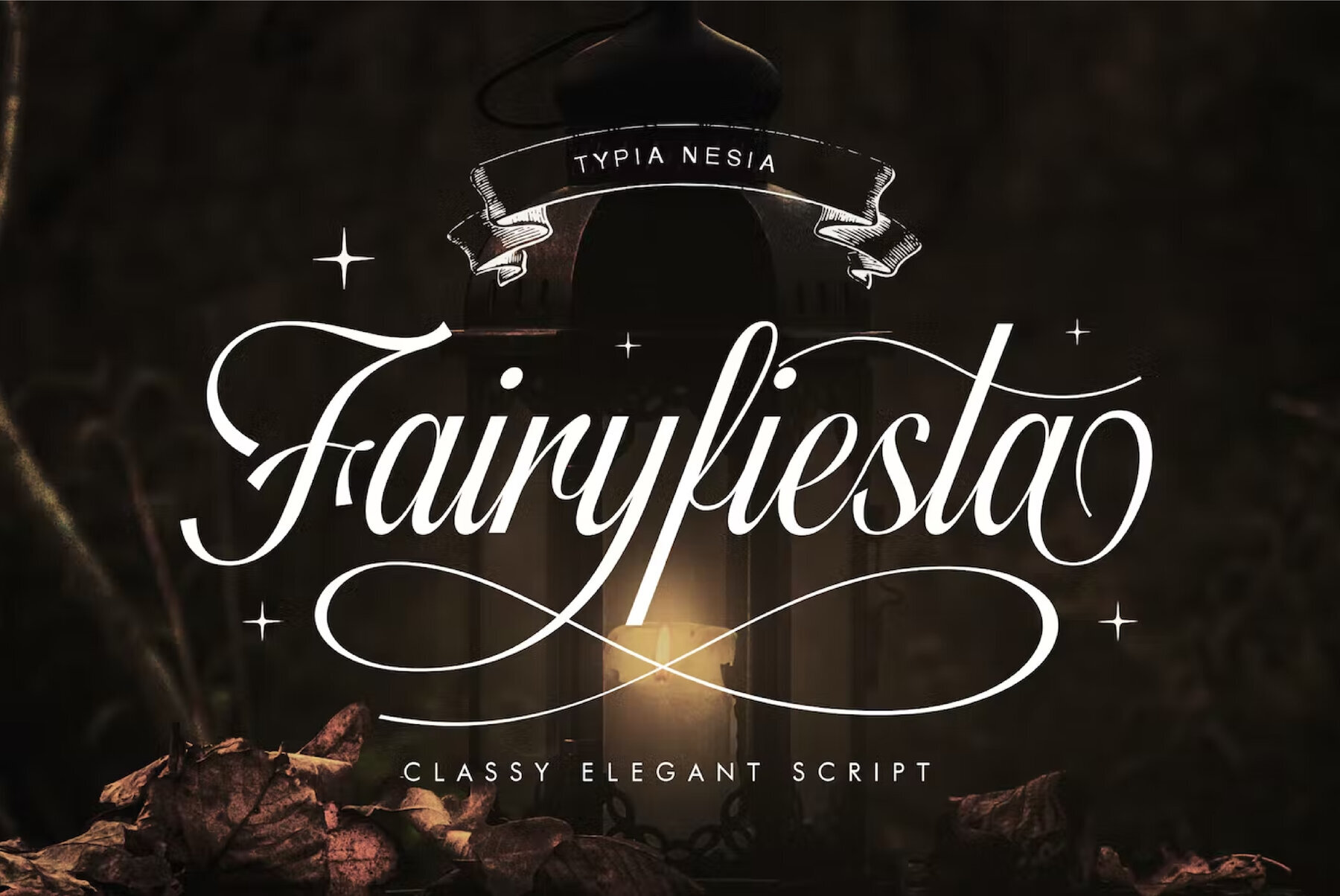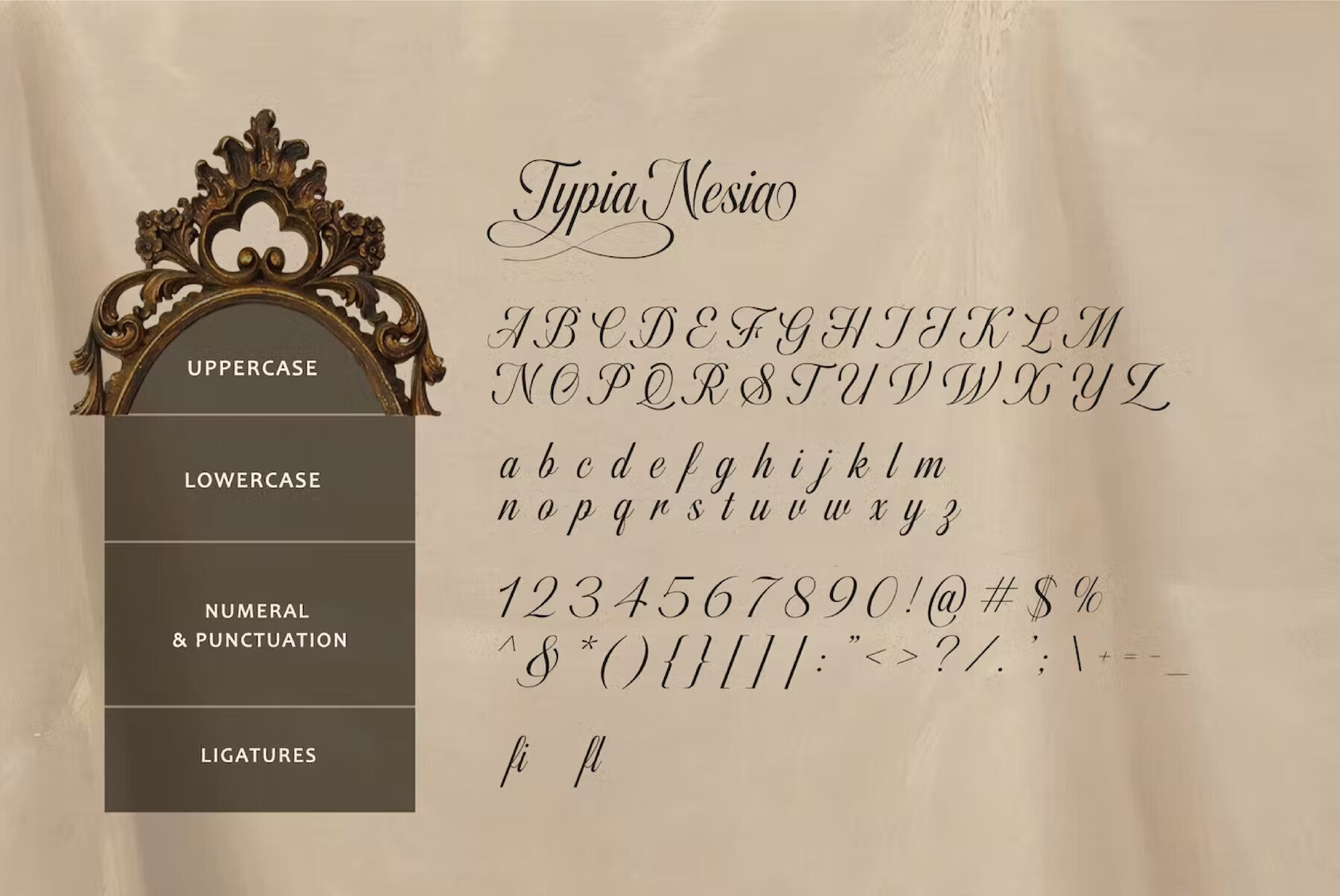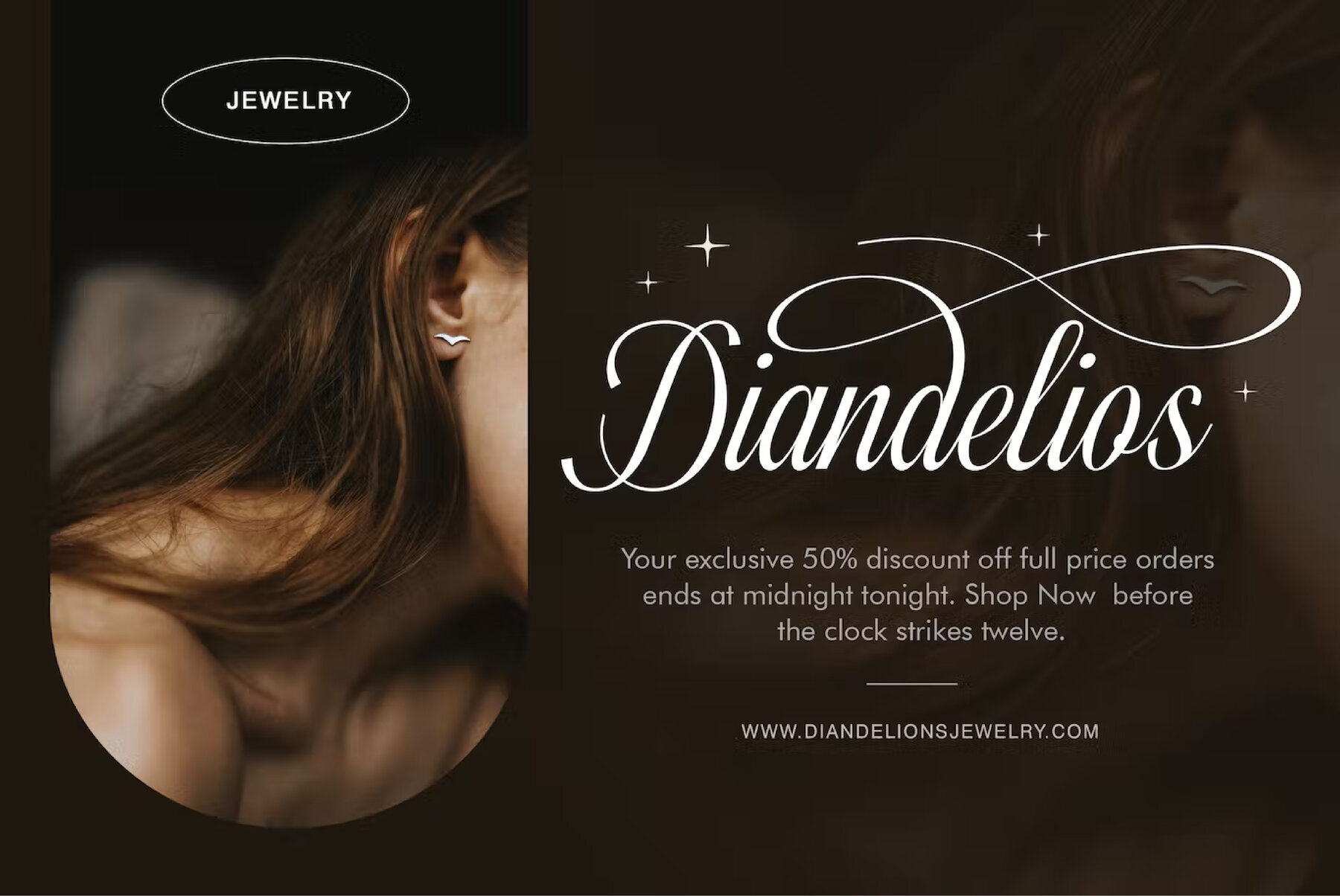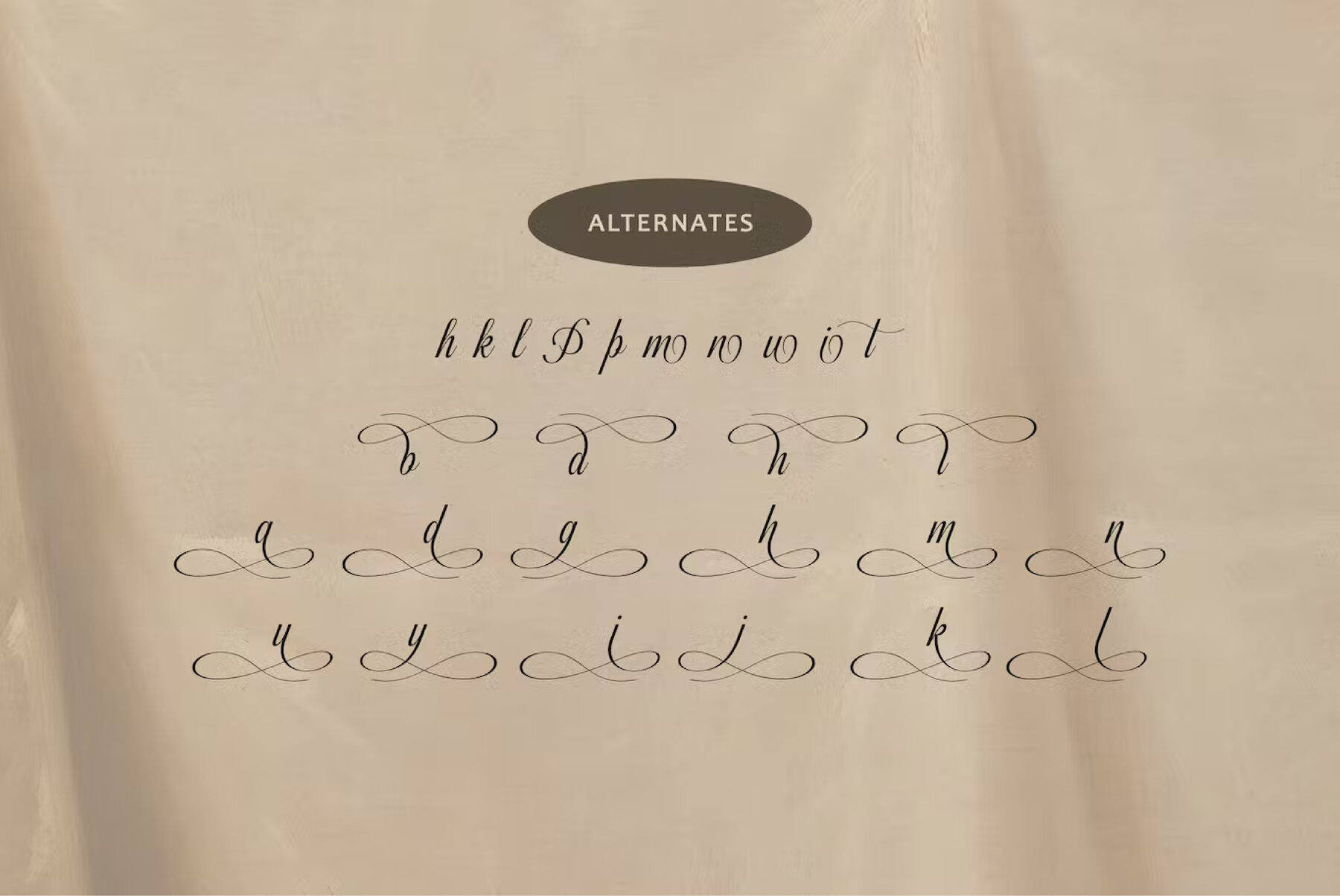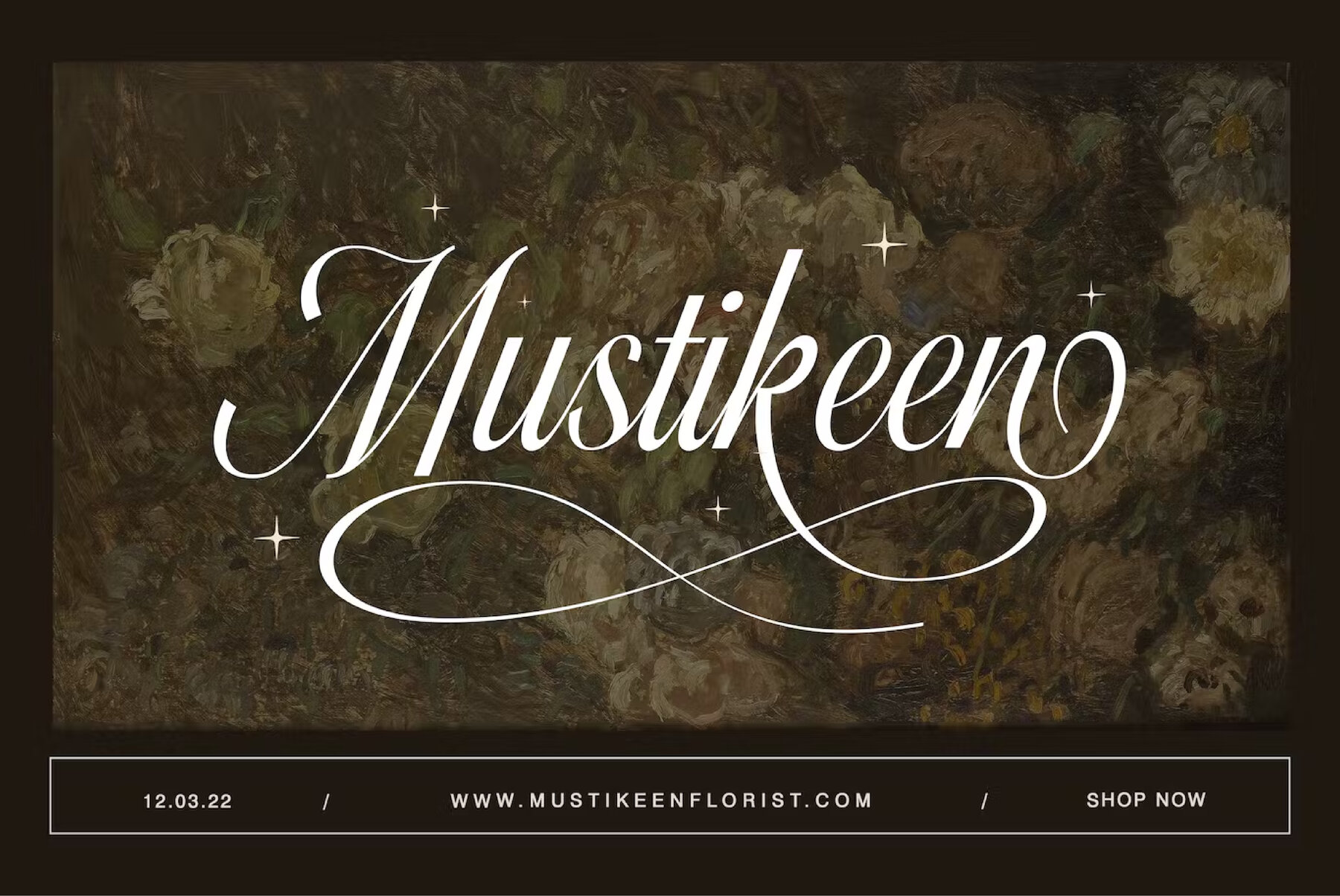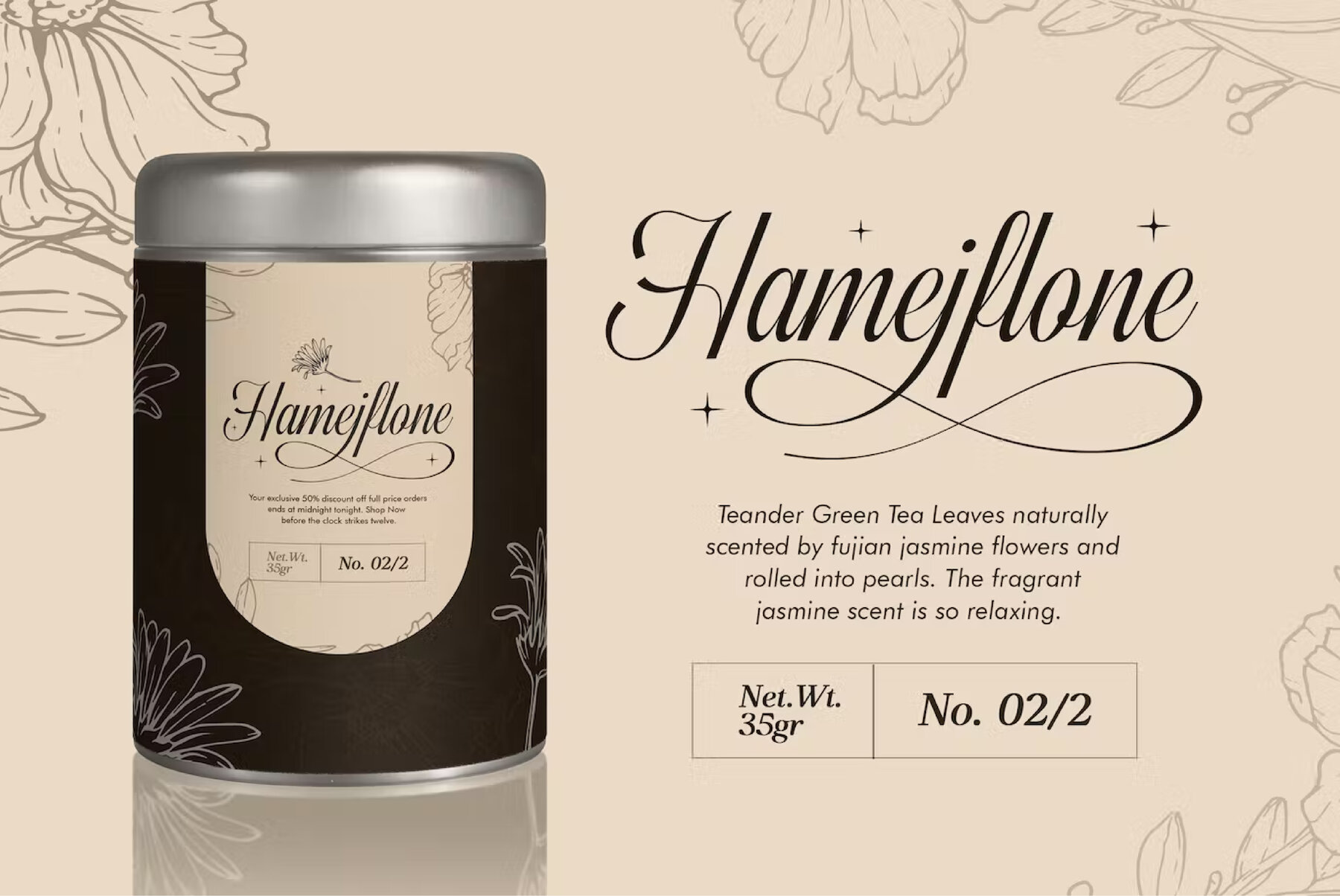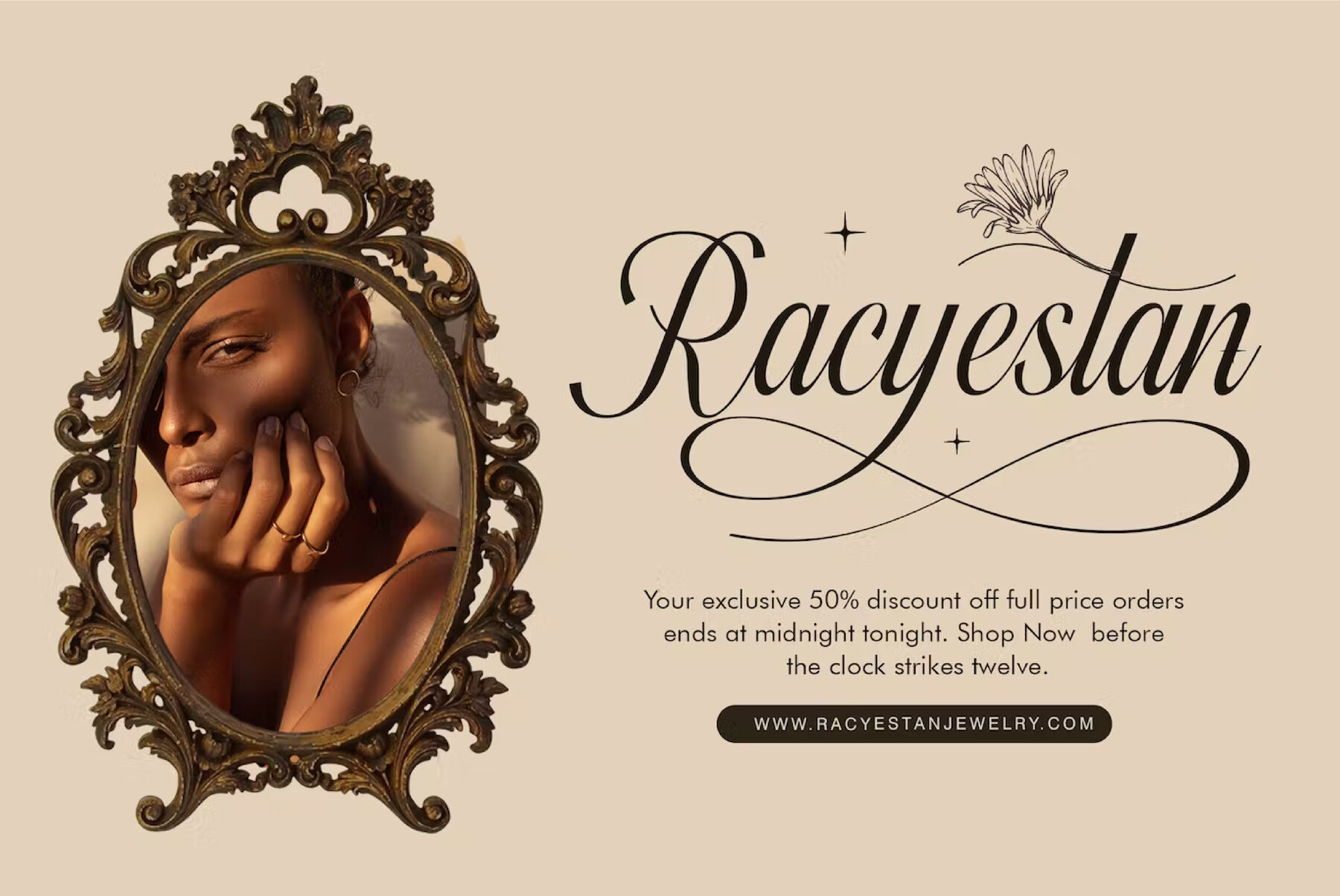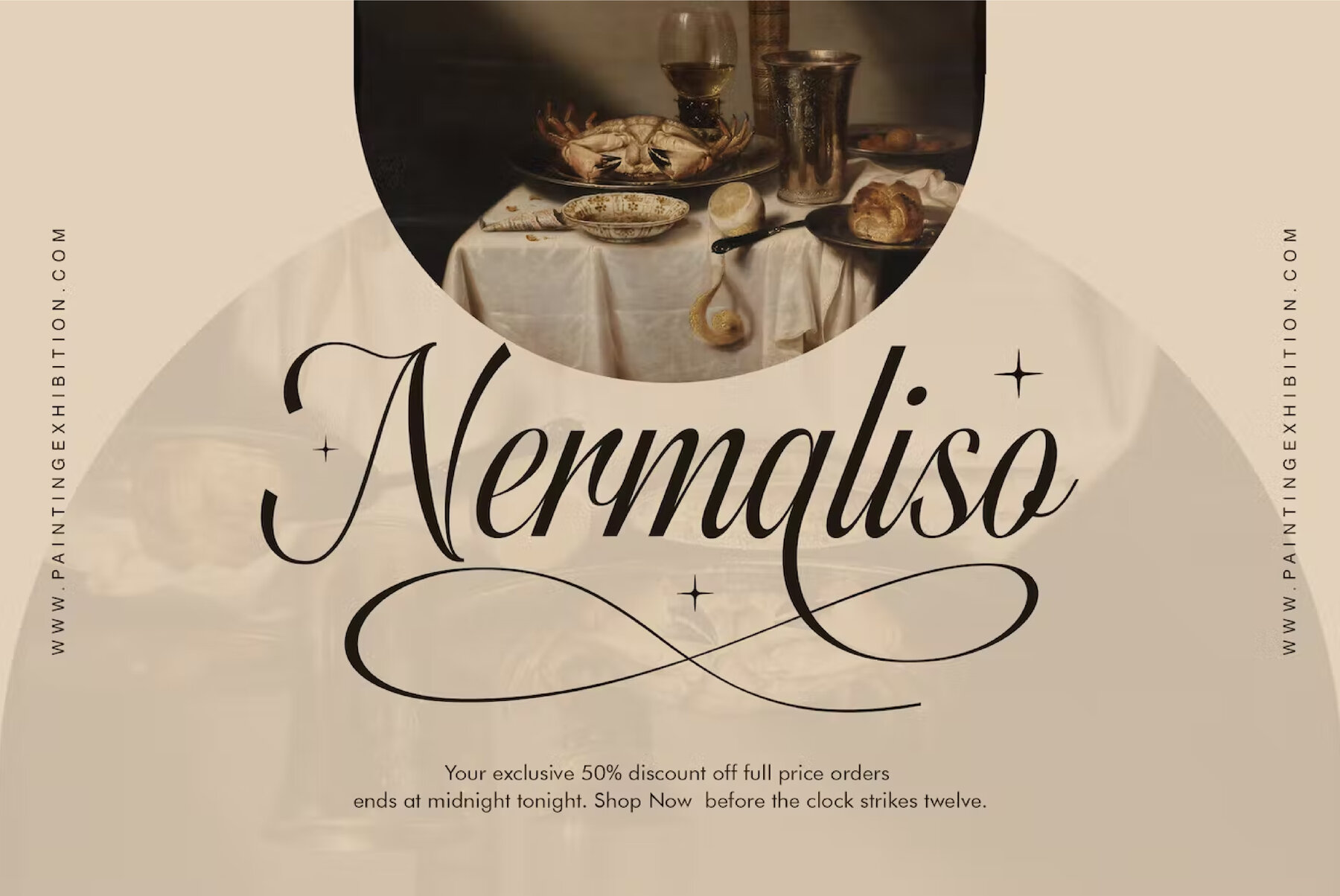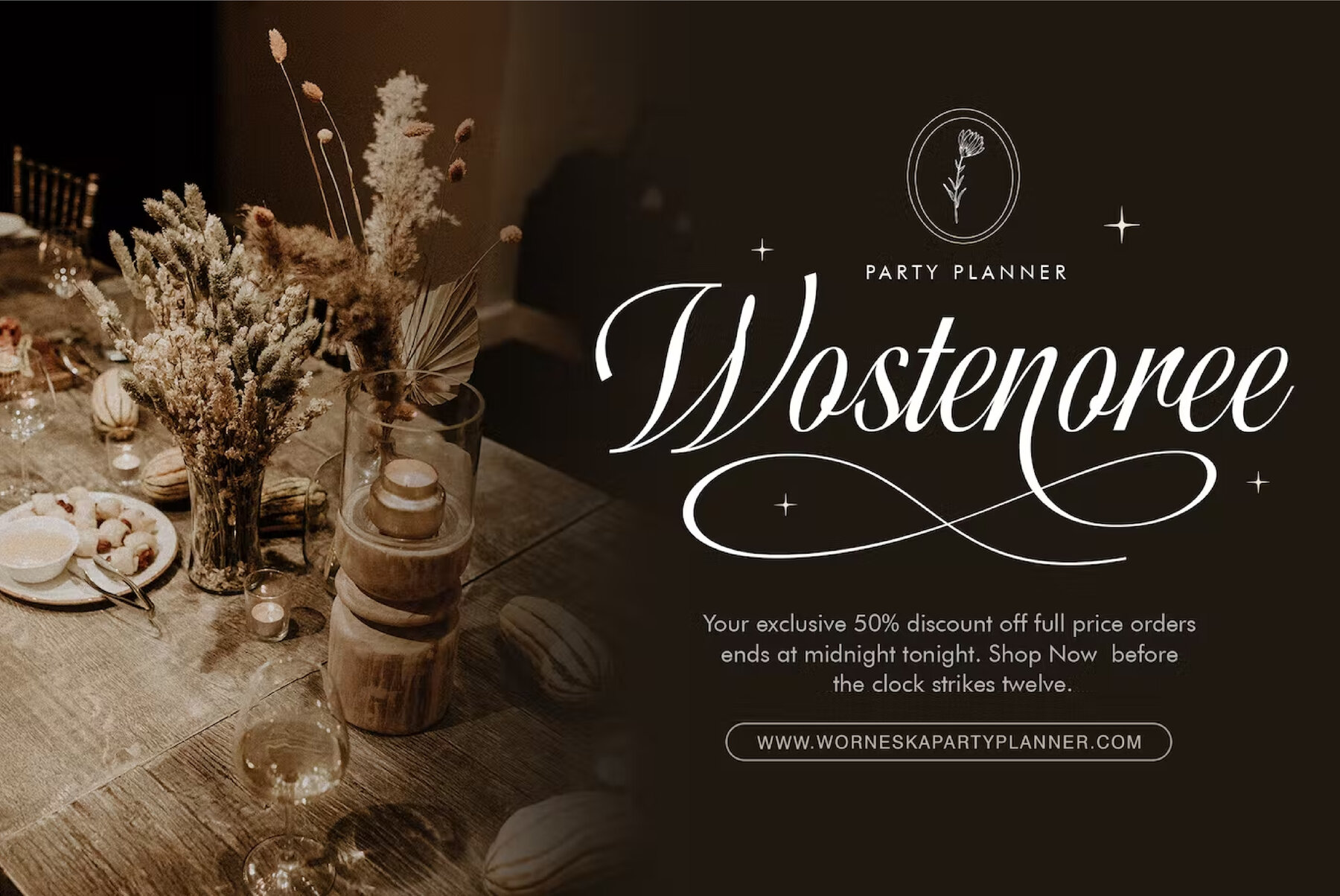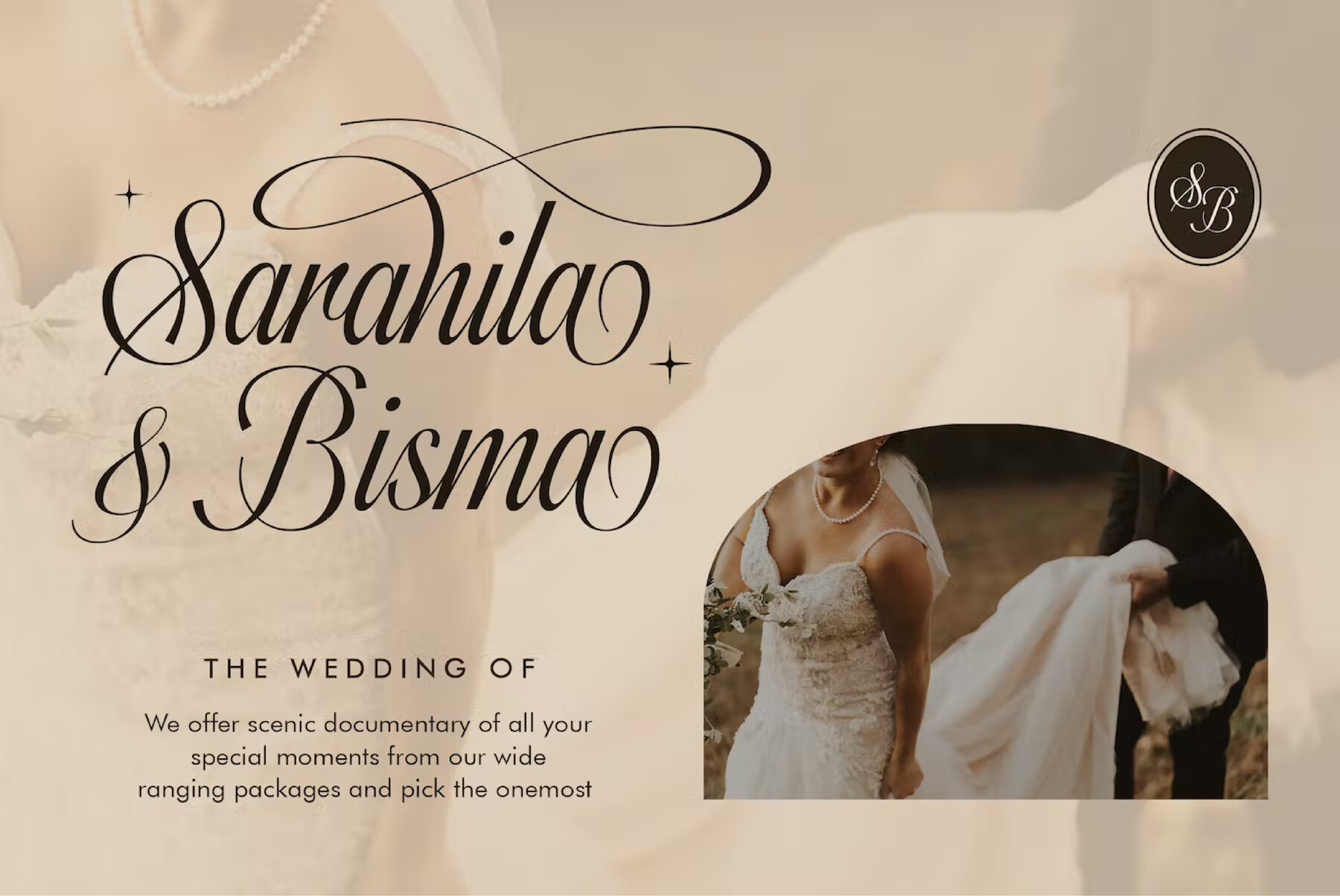
Fairyfiesta Font
Fairyfiesta Regular
With Fairyfiesta Script Font, your upcoming projects will be infused with luxury and style. Its glyph variations - Ligature, Alternate and Swash – allow you to create a unique typography design that adds personality to any project. Use it for logo or branding designs with a touch of class; promote fashion in an alluring way; boost the look of art galleries or museum exhibits through creative marketing materials; add sophistication to stationery sets ; make book covers stand out; wow clients by designing memorable event invitations...the possibilities are endless! So go ahead: pick up this font today and let creativity's wings take flight!